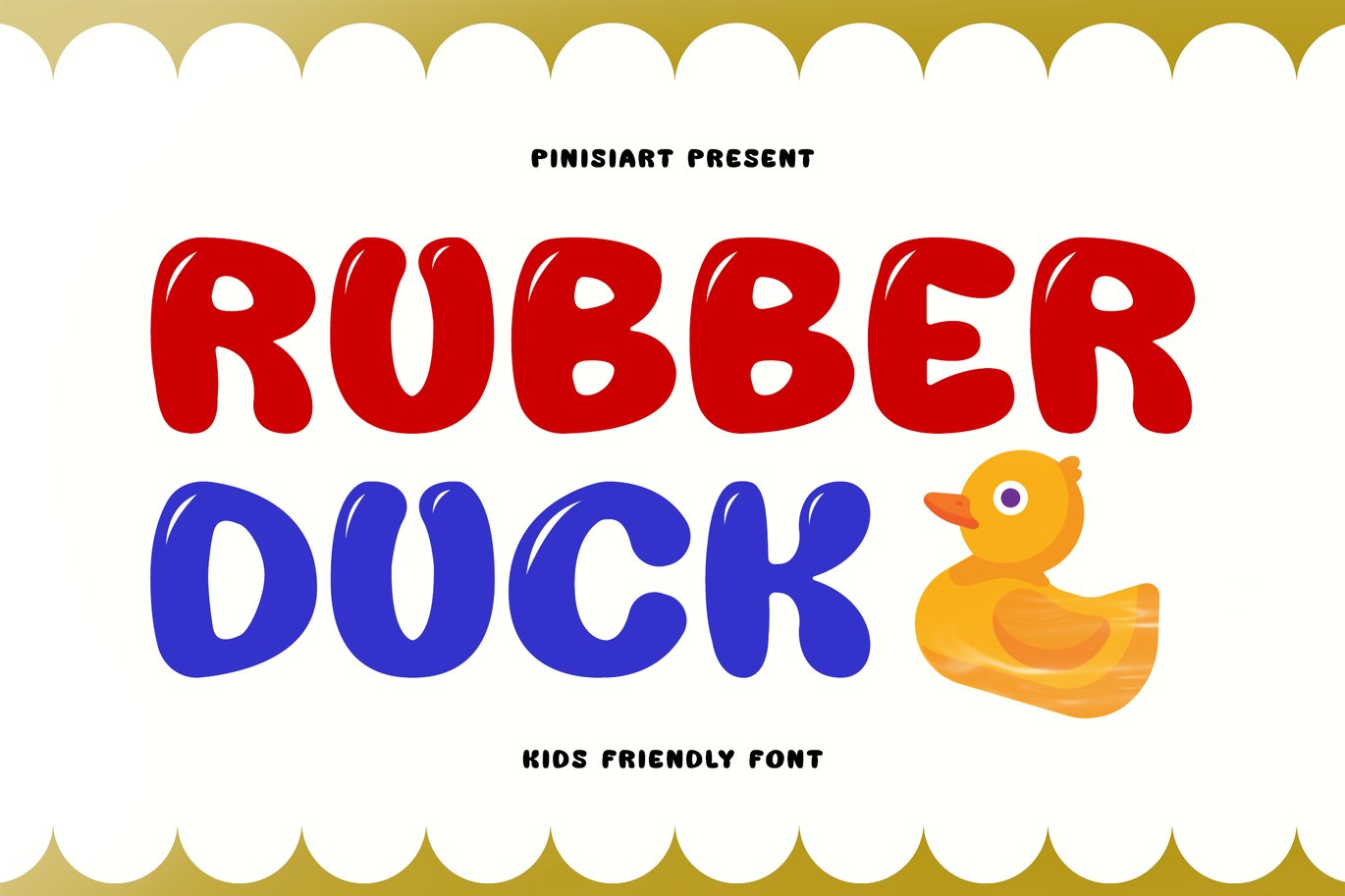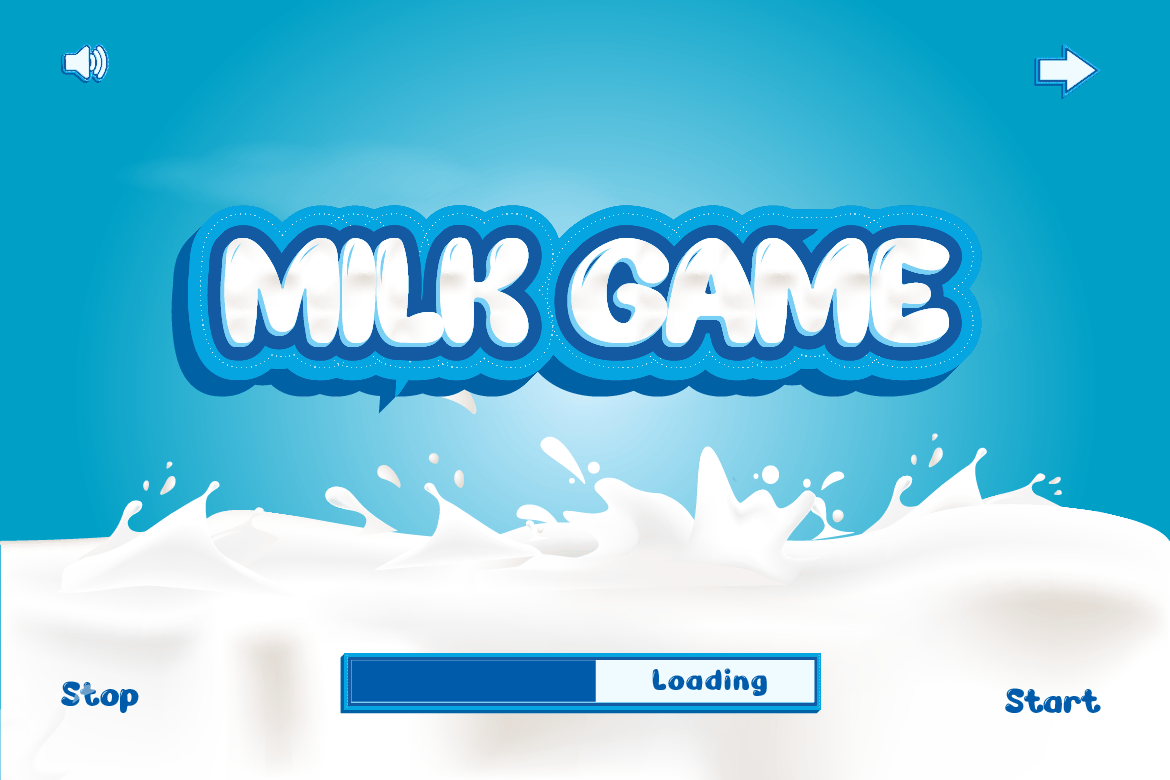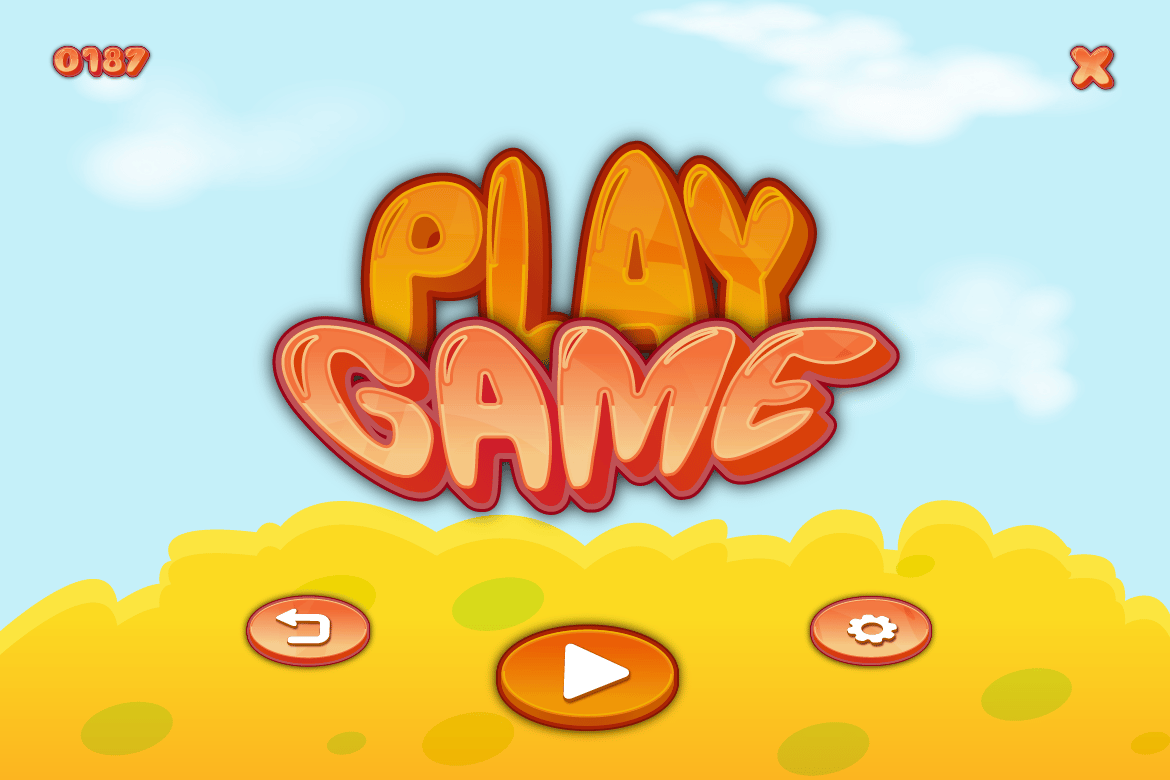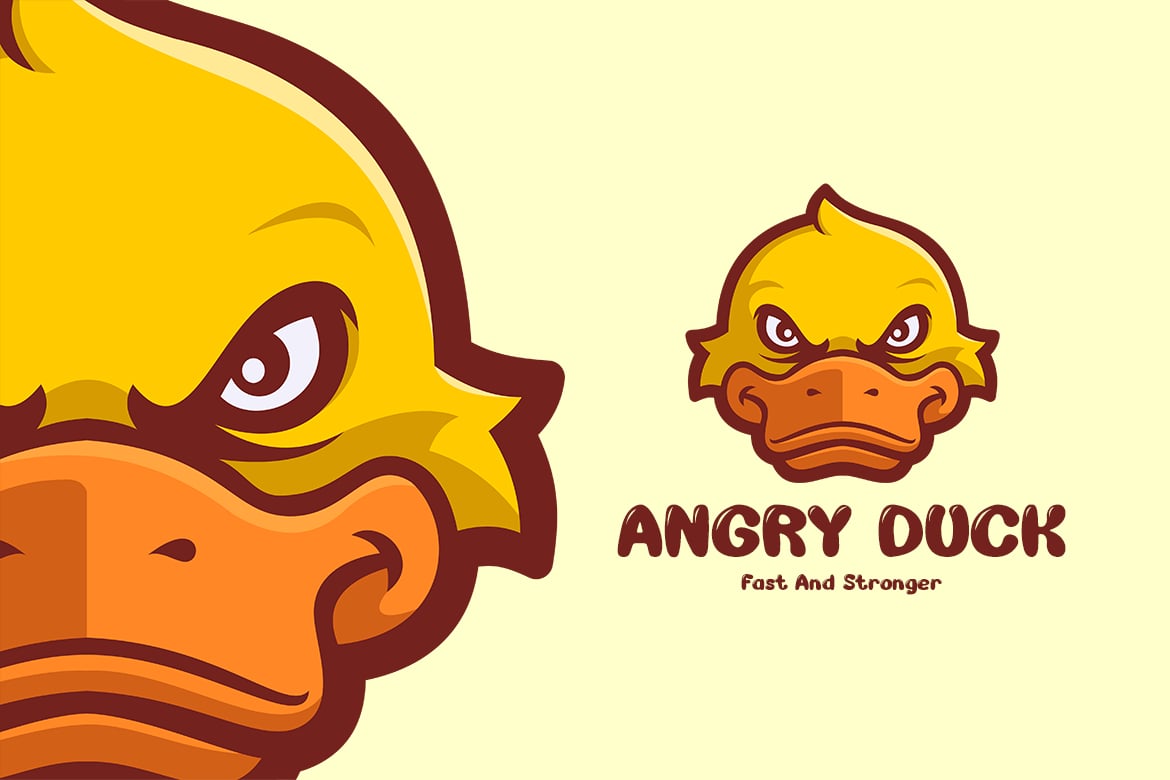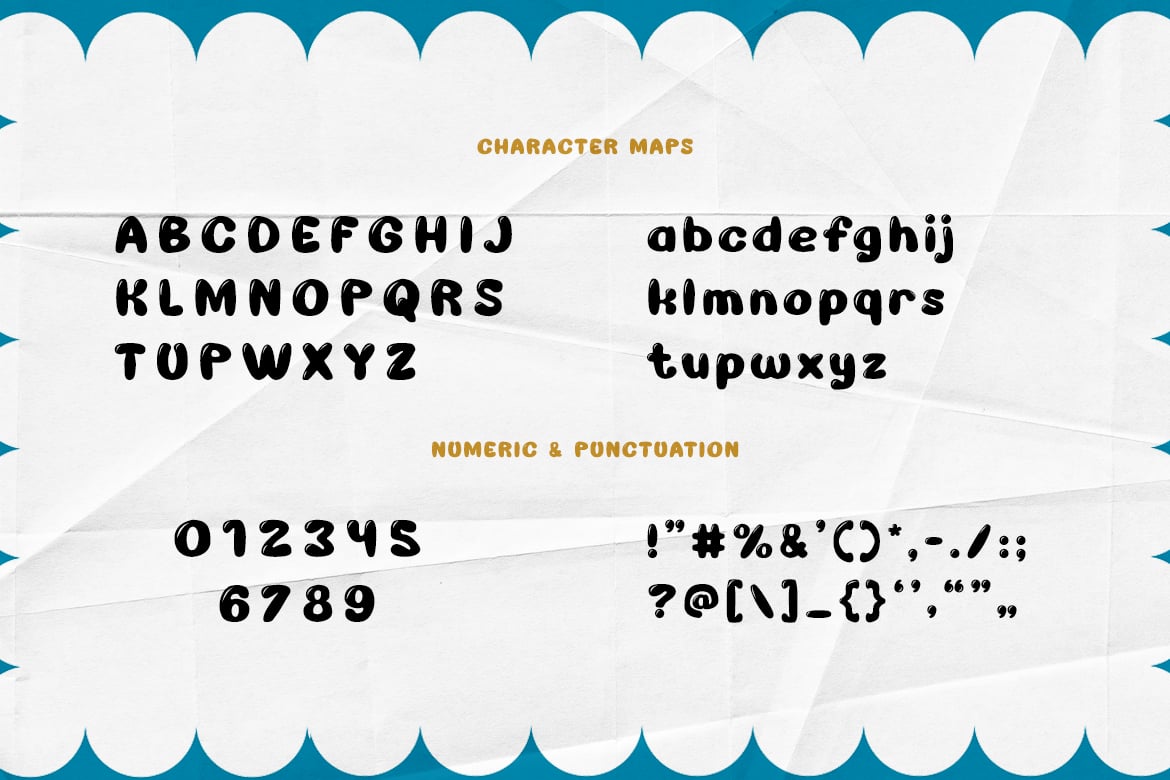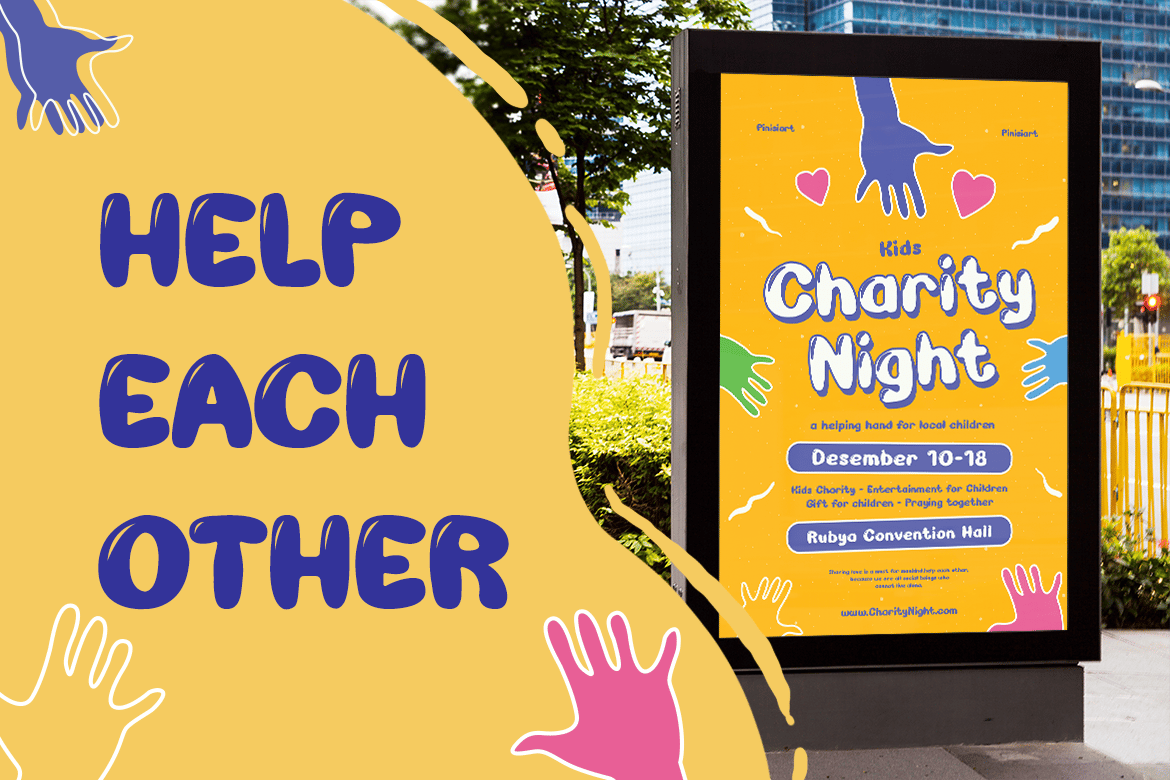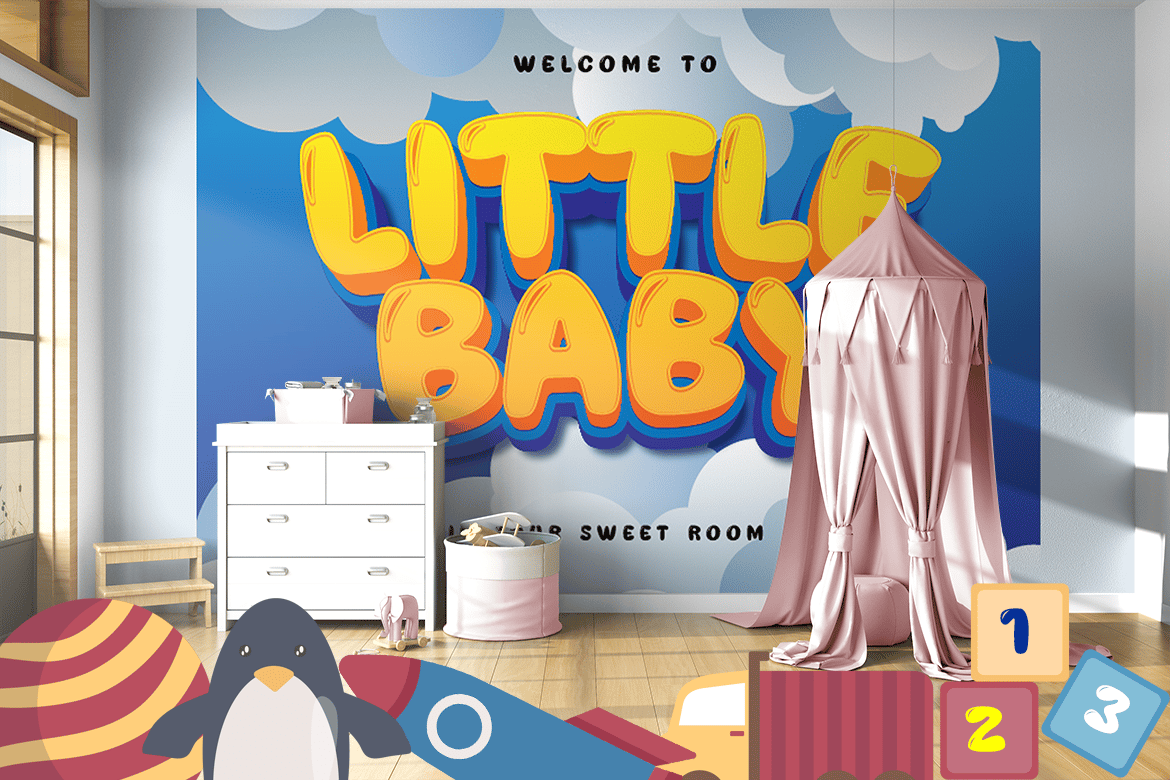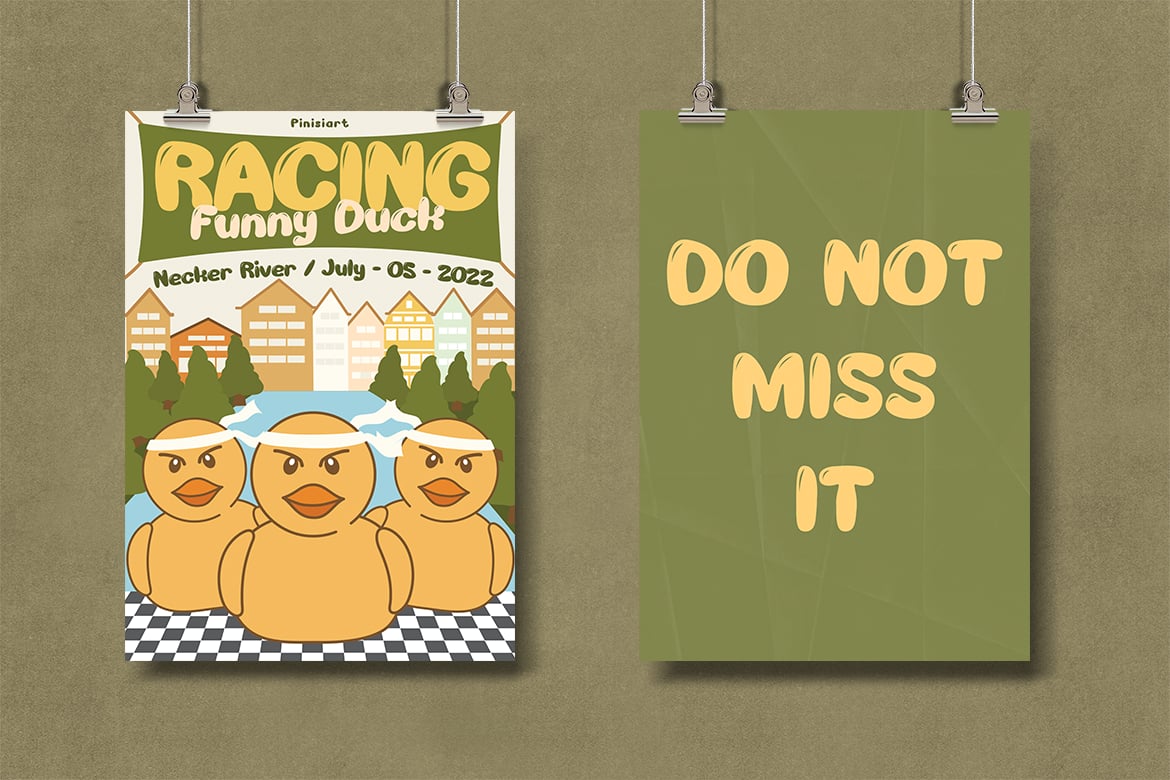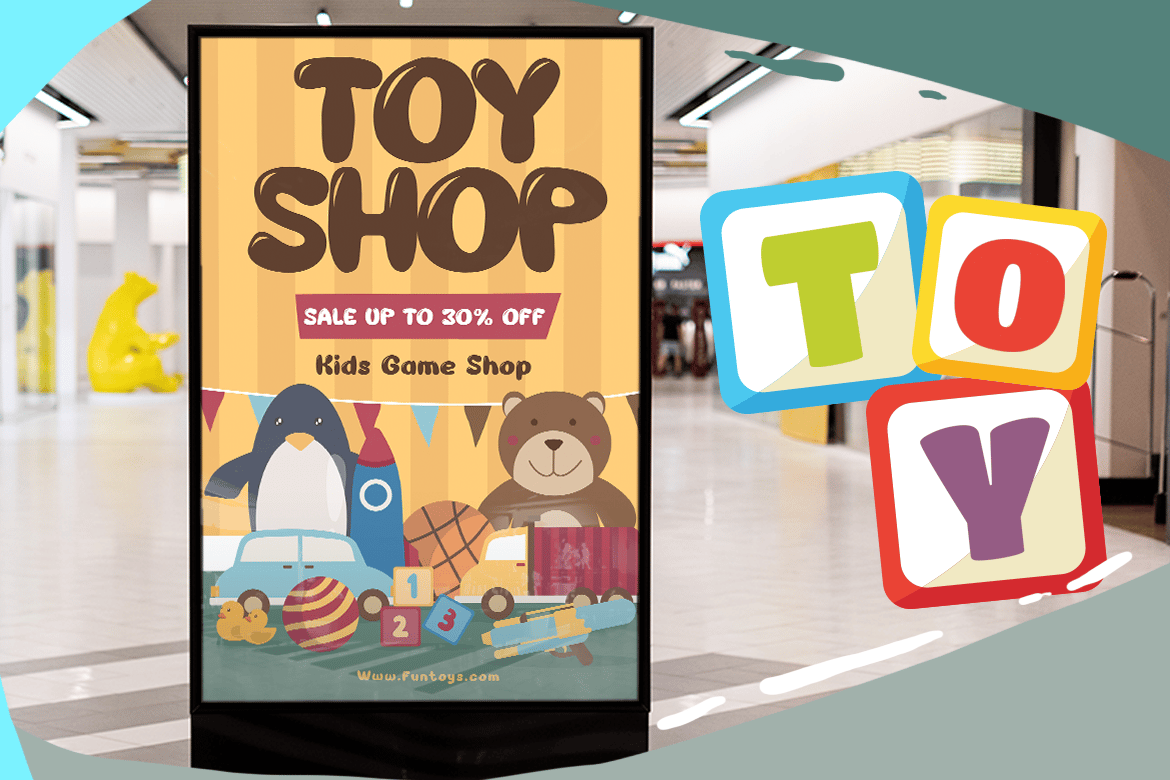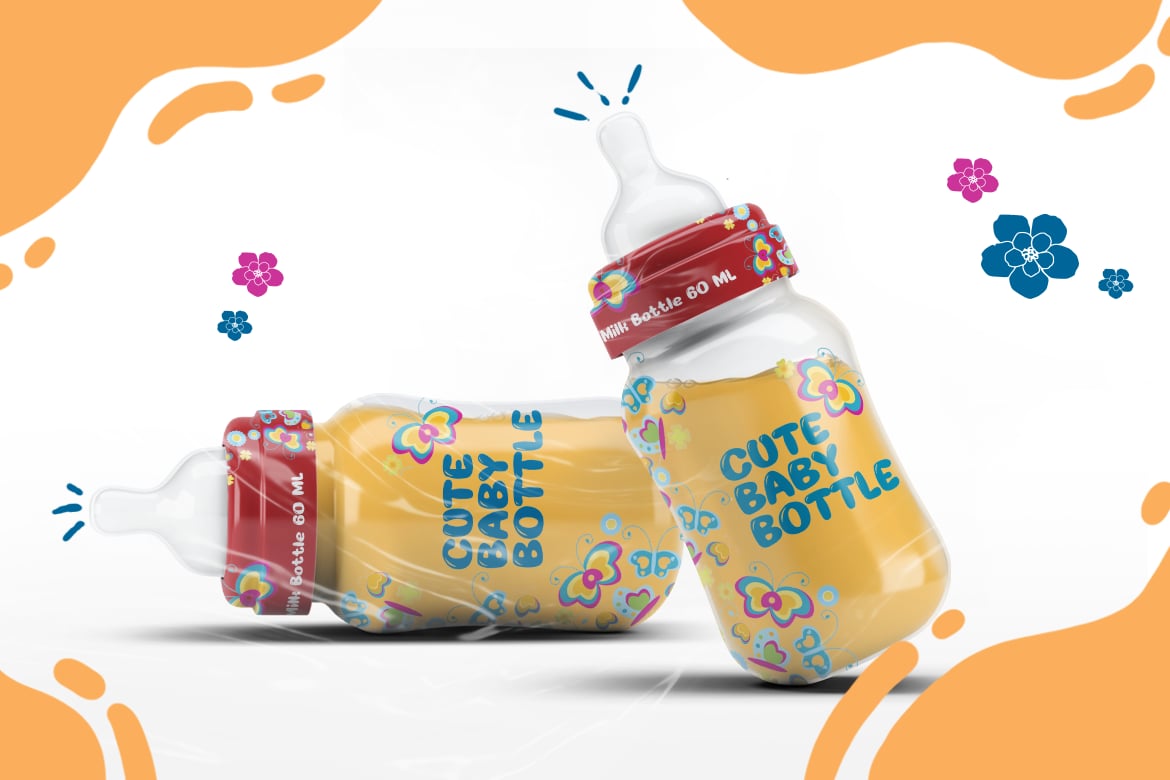
Rubber Duck – Kids Friendly Font
Cute and friendly, with a balloon style effect that emphasize the cuteness and friendly feeling in it.
Suit perfectly for children’s books market, online games, stationery, school supplies font, poster, movie title, youtube covers, youtube thumbnails, social media page covers, and so on…